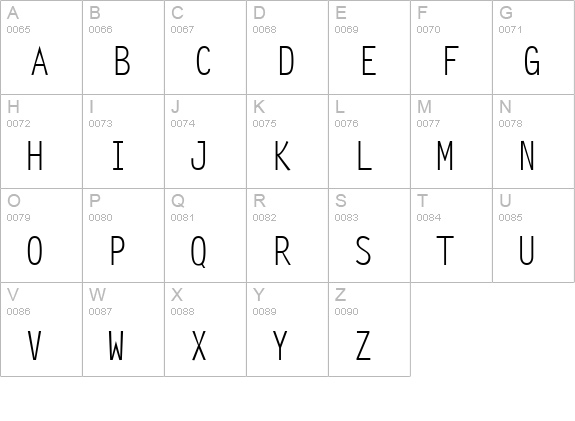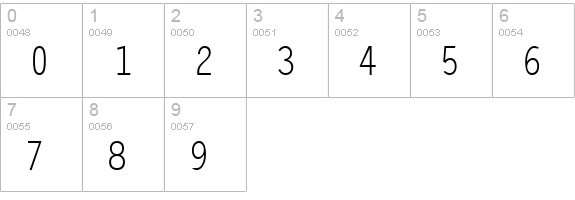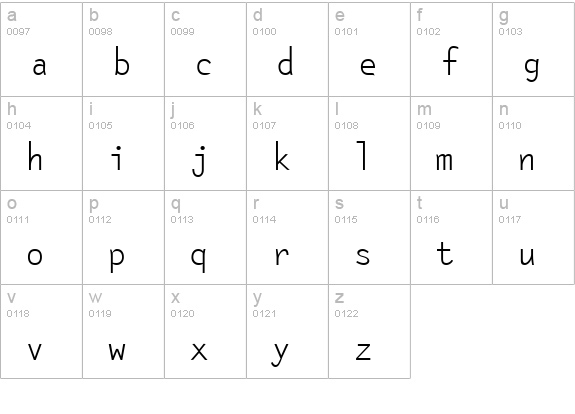
Ocelot Monowidth Font Details
Introducing Ocelot Monowidth font, a versatile and modern typeface perfect for a wide range of design projects. With its clean lines and distinct monospaced characters, Ocelot Monowidth exudes a sense of sophistication and style. This font is ideal for coding, programming, technical documentation, and any other application where a monospaced font is required. What sets Ocelot Monowidth apart is its perfect balance of form and function, making it both visually appealing and highly readable. The font's uniform character width ensures consistency and precision in every design layout. Whether you're creating a sleek website, a professional presentation, or a clean print publication, Ocelot Monowidth is sure to elevate your project to the next level. Best of all, Ocelot Monowidth is available for free download at FontsMarket.com. This means you can easily access this high-quality font and use it in your personal and commercial projects without any cost. Don't miss out on the opportunity to enhance your designs with the elegance and versatility of Ocelot Monowidth font. Download it today and see the difference it can make!